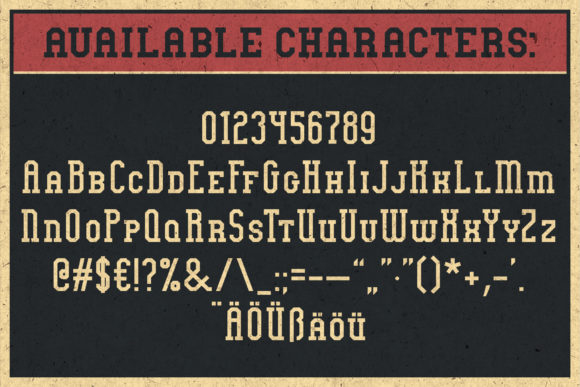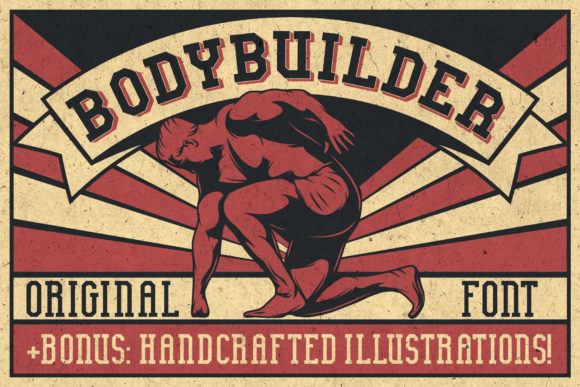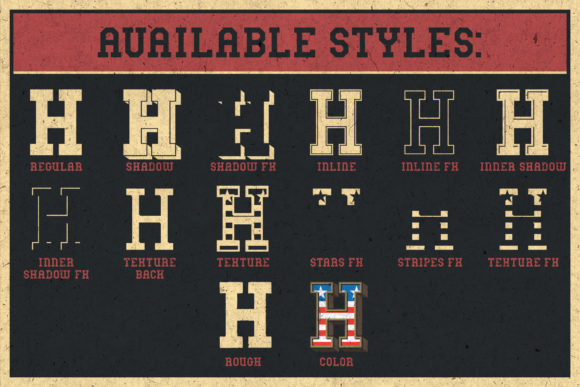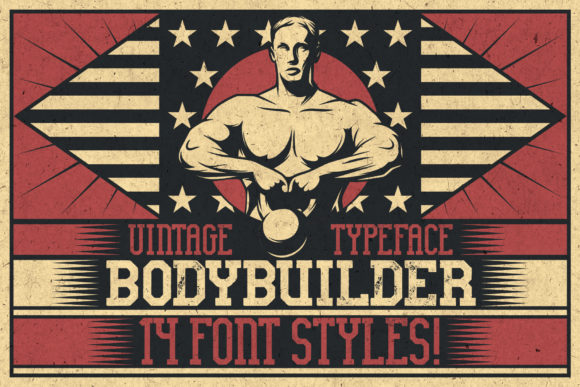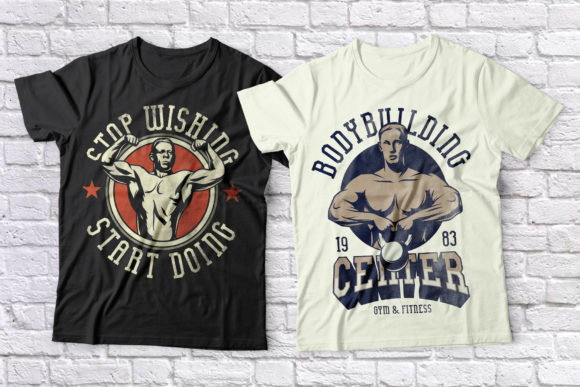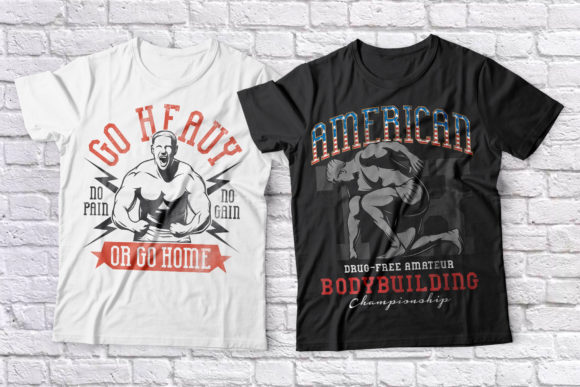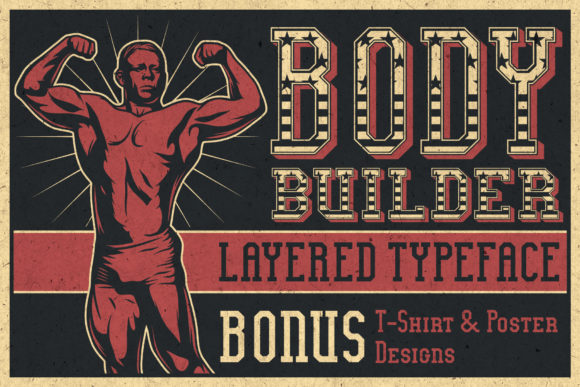
Unleash Your Creativity with Bodybuilder Font
Are you a designer or crafter looking for a bold and fierce font to take your projects to the next level? Look no further than the Bodybuilder Font. This stunning display font is perfect for creating eye-catching posters, flyers, and prints that demand attention. In this article, we’ll explore the features and benefits of the Bodybuilder Font, and show you how to make the most of its endless possibilities.
What is Bodybuilder Font?
Bodybuilder Font is a bold and rugged display font designed to make a statement. Its strong, muscular lines and fierce aesthetic make it perfect for projects that require a bold and attention-grabbing look. Whether you’re creating a poster for a fitness event, a flyer for a gym, or a print ad for a sports brand, this font is sure to deliver.
Key Features of Bodybuilder Font
- Bold and Fierce: The Bodybuilder Font is designed to be bold and fierce, making it perfect for projects that require a strong and attention-grabbing look.
- Display Font: This font is specifically designed as a display font, making it perfect for headlines, titles, and other large-format text.
- High-Quality: The Bodybuilder Font is a high-quality font, designed to deliver crisp and clear results even at large sizes.
Benefits of Using Bodybuilder Font
So why choose the Bodybuilder Font for your next project? Here are just a few benefits of using this amazing font:
- Adds Impact: The Bodybuilder Font adds impact and drama to your projects, making them stand out from the crowd.
- Creates Contrast: The bold and fierce aesthetic of this font creates contrast with other design elements, making your message stand out.
- Enhances Readability: Despite its bold aesthetic, the Bodybuilder Font is surprisingly easy to read, making it perfect for headlines and titles.
- Endless Possibilities: With its versatility and flexibility, the Bodybuilder Font offers endless possibilities for creative expression.
How to Use Bodybuilder Font
Using the Bodybuilder Font is easy. Here are a few tips to get you started:
- Pair with Other Fonts: Pair the Bodybuilder Font with other fonts to create contrast and add visual interest to your design.
- Experiment with Colors: Experiment with different colors to find the perfect combination that makes your design pop.
- Play with Sizes: Play with different sizes to create hierarchy and emphasis in your design.
- Get Creative: Don’t be afraid to get creative and experiment with different design elements to make your project stand out.
In conclusion, the Bodybuilder Font is a bold and fierce display font that’s perfect for designers and crafters looking to add impact and drama to their projects. With its strong and muscular lines, high-quality design, and endless possibilities, this font is sure to deliver results. So why wait? Download the Bodybuilder Font today and unleash your creativity!